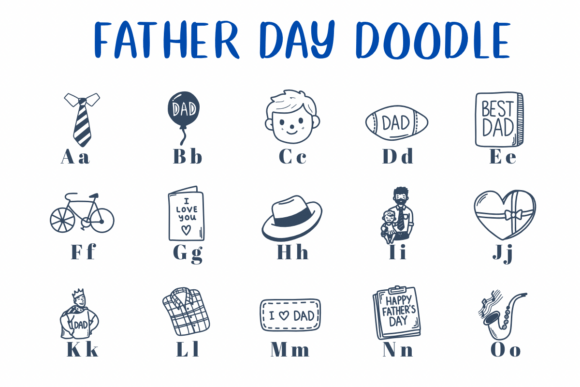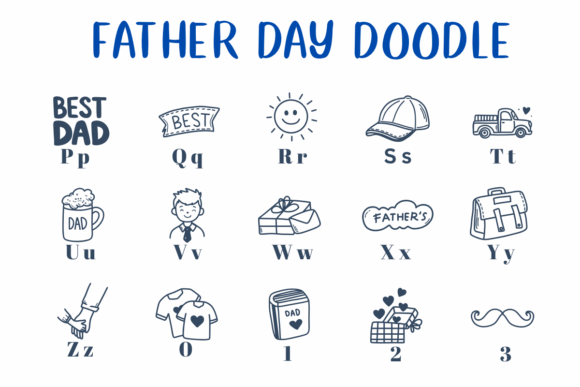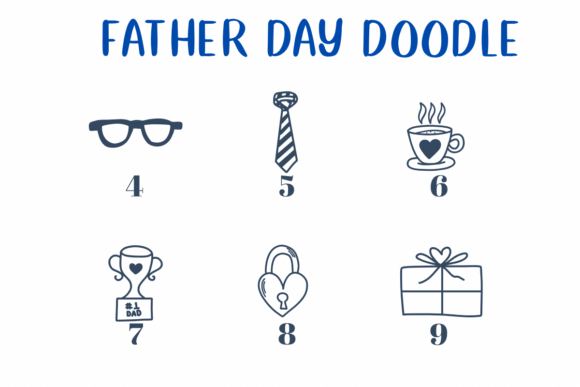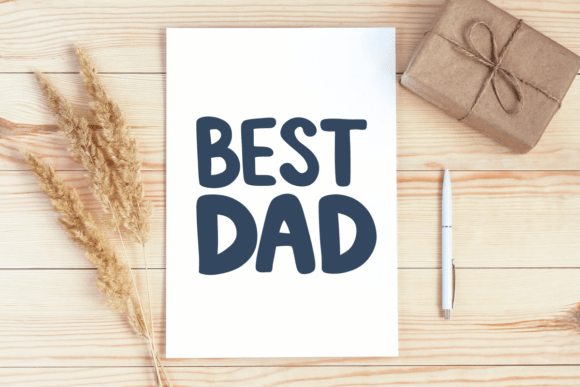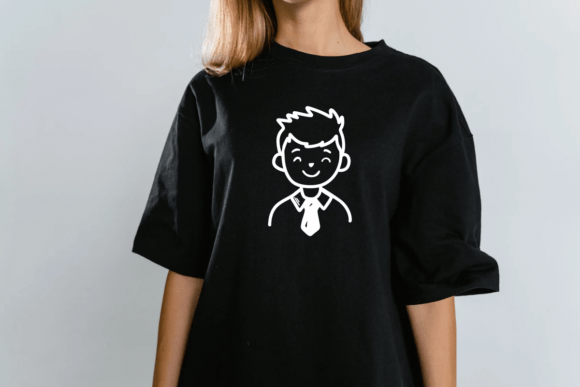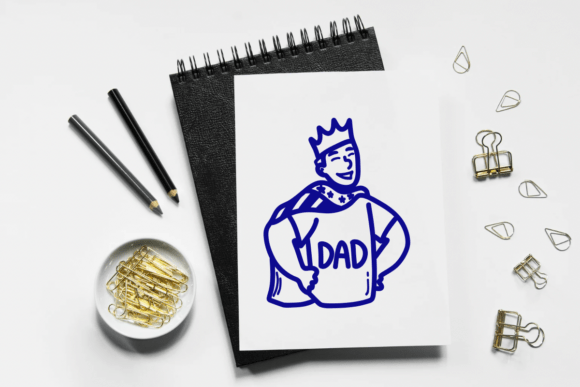
Introduction to Father Day Doodle Font
As a designer, there’s nothing quite like the thrill of bringing a creative idea to life. Whether it’s a wedding invitation, a DIY craft, or a logo for a new business, the right font can make all the difference. I still remember the moment I stumbled upon a free download of a beautiful dingbats font that added a touch of whimsy to my latest project. It was the Father Day Doodle Font, and I was instantly hooked.
For designers like you and me, high-quality design resources like the Father Day Doodle Font are a treasure trove of inspiration and creativity. With its lovely theme and transparent background, this font is perfect for adding a personal touch to any project. Whether you’re working on a creative project for a client or simply looking for a fun way to express yourself, the Father Day Doodle Font is a valuable addition to your design arsenal.
Key Features of Father Day Doodle Font
- Unique Hand-Drawn Design: The Father Day Doodle Font features a one-of-a-kind, hand-drawn design perfect for adding a personal touch to your creative project.
- Transparent Background: Each font character has a transparent background, allowing you to easily integrate it into your design without any unwanted elements.
- Perfect for Father’s Day: This font is specifically designed to celebrate Father’s Day, making it an ideal choice for greeting cards, posters, and other creative projects.
- Design Resource for Personal Projects: The Father Day Doodle Font is a versatile design resource suitable for various personal projects, including invitations, gift tags, and more.
Honest Review: Father Day Doodle Font
As a designer, I’m always on the lookout for unique and high-quality design resources to elevate my creative projects. The Father Day Doodle Font caught my eye with its playful and quirky design, perfect for adding a personal touch to Father’s Day cards or gifts.
What works well about this font is its simplicity and versatility. The transparent background makes it easy to customize and combine with other design elements. I also appreciate the high-quality vectors that ensure crisp and clear rendering, even when scaled up or down.
- ✨ Unique and playful design
- ✨ High-quality vectors for crisp rendering
One limitation of this font is its limited character set. While it’s perfect for creating simple messages or titles, it may not be suitable for longer texts or complex designs. Additionally, the font may not be as versatile as some other design resources, limiting its use to specific creative projects.
Overall, the Father Day Doodle Font is a great addition to any designer’s toolkit, especially for Father’s Day-themed projects. While it has some limitations, its unique design and high-quality vectors make it a valuable resource for any creative project.
Getting the Most Out of the Father Day Doodle Font
For the best results, use the font on a transparent background to maintain its aesthetic appeal. Experiment with different font sizes and styles to add visual interest to your design.
The Father Day Doodle Font is perfect for:
- Cards and invitations for Father’s Day
- Personalized gifts and mementos